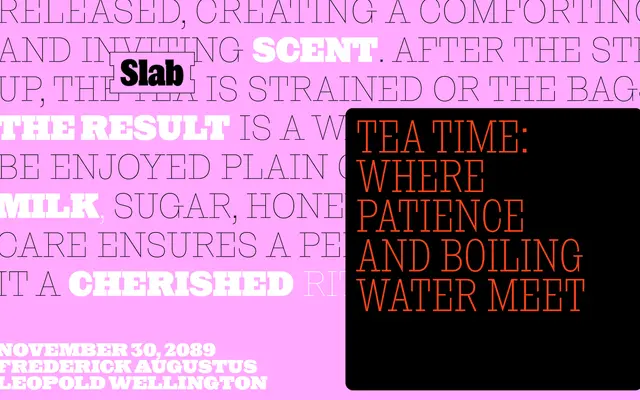
NaN Rage Slab
NaN · Hugues Gentile, Fanny Hamelin, Fadhl Haqq, Léon Hugues, Jean-Baptiste Morizot, Luke Prowse, Florian Runge, Jolana Sýkorová · 2024
NaN Rage Slab specimen from NaN
A bracket-less slab-serif spanning four widths and nine weights, built on neo-grotesque principles with sharp, simplified forms and perfectly horizontal stroke endings.
Part of the NaN Rage Typographic Universe, Rage Slab strips the slab-serif of its historical ornament, replacing bracketed serifs and decorative curves with clean interruptions and horizontal terminals drawn from neo-grotesque convention. The result reads cooler and more restrained than its sibling Rage Beau, running from Thin to Black across Standard, Narrow and XCondensed widths for use from dense body text columns to broad display headlines. Supporting 305 Latin-based languages, it is a thoroughly ahistorical take on the genre with a sharp, contemporary voice.
Bracket-less serifs, horizontal stroke endings borrowed from neo-grotesques, and simplified non-decorative forms place this firmly in the geometric/neo-grotesque branch of the slab-serif genre rather than the traditional Clarendon or Egyptian lineages.